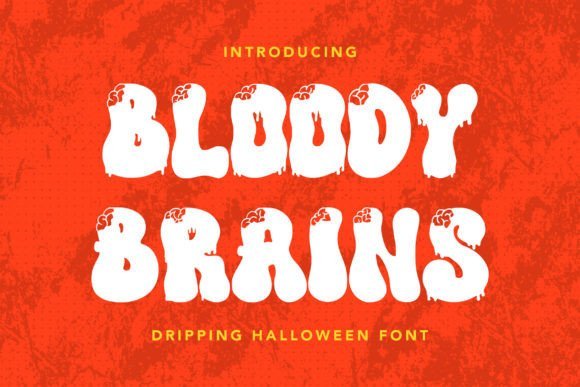
The Perfect Recipe for a Spine-Chilling Design
Have you ever been brainstorming ideas for a project, and suddenly, a spark of creativity hits you like a bolt of lightning? For designers, those moments are priceless. It’s when the imagination runs wild, and the possibilities seem endless. And for Halloween enthusiasts, the perfect storm of creativity often begins with a font that screams “spooky” and “eye-catching.”
Enter Bloody Brains Font, the ultimate gothic-inspired font that’s guaranteed to add a dash of horror to your next design project. With its blood-dripping, brain-spilling design, this font is perfect for logotypes, posters, badges, book covers, and even T-shirt designs. Its versatility makes it a valuable addition to any designer’s toolkit.
Add the Bloody Brains Font to your creative projects, and get ready to captivate your audience with a design that’s both eerie and captivating. Whether you’re a seasoned designer or a Halloween enthusiast, this font is sure to inspire your next creative masterpiece.
Bloody Brains Font Key Features
- Font Family: Bloody Brains is a horror-themed font family designed to evoke a sense of eeriness and fear.
- Unique Characteristics: Features a unique blend of gothic and horror elements, including dripping blood, skulls, and other eerie details.
Bloody Brains Font Review
Overall, I think Bloody Brains Font is a unique and interesting font that could be a great fit for certain projects. ✨ Here are some things that work well:
- Uniqueness – This font stands out from the crowd with its bold, gothic-inspired design.
- Legibility – Despite its unconventional look, the font is surprisingly easy to read.
- Expressiveness – The font’s intricate details and irregularities give it a sense of character and personality.
However, there are some limitations that might make it less suitable for certain projects:
- Limited use cases – The font’s bold, dramatic design might be overwhelming for more straightforward or conservative projects.
- Lack of versatility – The font’s style is quite distinctive, which can make it difficult to use in combination with other fonts.
- Technical issues – I experienced some minor issues with font rendering and spacing, particularly at smaller sizes.
Overall, I think Bloody Brains Font is a great choice for projects that need a bold, attention-grabbing look. It’s not for every project, but it’s definitely worth considering for those that require a unique and expressive touch.
Tips for Getting the Most Out of Bloody Brains Font
Use Bloody Brains Font to create a sense of tension and foreboding in your design. Pair the font with bold and bright colors to create a striking visual effect. Experiment with different font sizes and styles to create a unique and eye-catching design.
Bloody Brains Font is perfect for horror-themed designs, such as Halloween invitations, spooky posters, and creepy logos. It’s also great for adding a touch of drama and suspense to your design, making it ideal for thriller movie trailers, scary game logos, and other horror-themed projects.